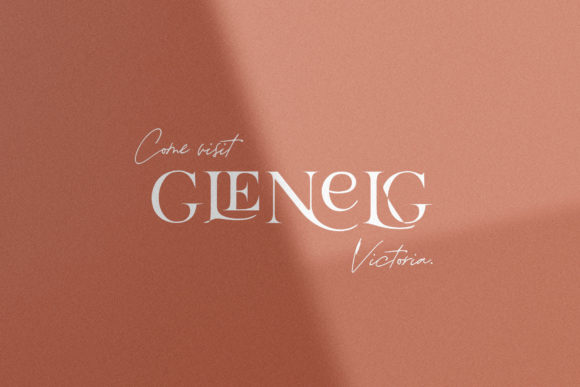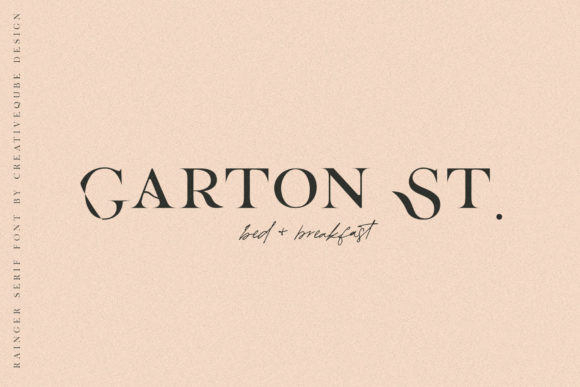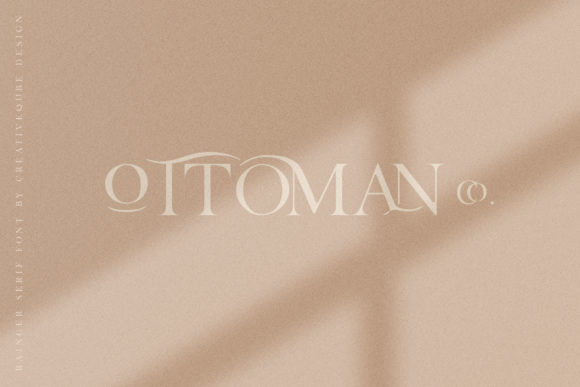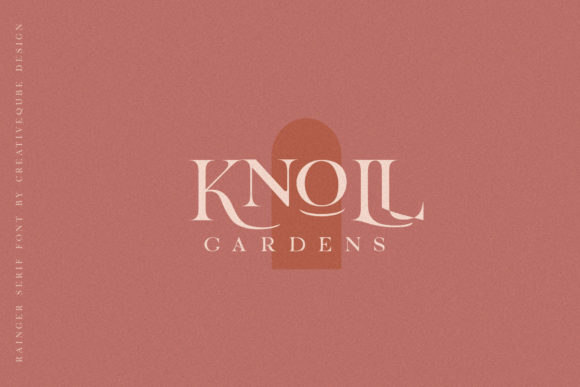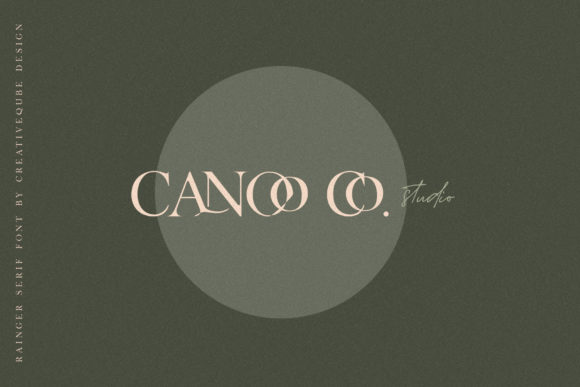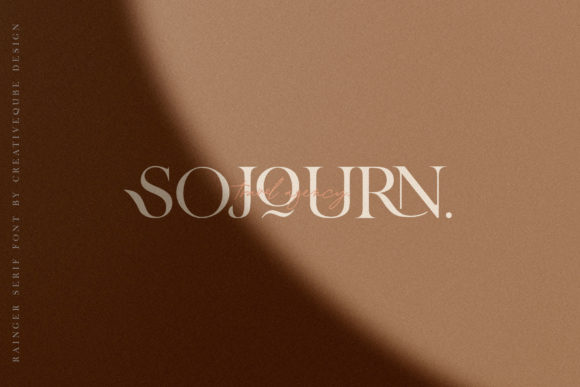
Introduction to Rainger Font
You’re in the zone, working on a creative project that requires a font that exudes confidence and style. The words start flowing, and your design begins to take shape. But something’s missing – a font that truly elevates your work and leaves a lasting impression. That’s where the Rainger Font comes in – a stylish and assertive serif font that’s sure to take your designs to the next level.
Key Features of Rainger Font
- High-quality, professional font ideal for creative projects, offering a unique and elegant touch.
- Designed to be highly legible and versatile, making it suitable for a variety of design applications, from branding to typography.
- Perfect for designers looking for a free, high-quality font that adds a touch of sophistication to their creative projects.
Honest Review: Rainger Font
I recently had the chance to work with the Rainger Font in a creative project and I must say, it was a great experience. The font is a versatile design resource that offers a lot of flexibility in terms of its usage.
What works well: ✨ The Rainger Font is a high-quality font that comes with a transparent background, making it easy to use in various design contexts. The font is also free to download, which is a major plus for designers who are on a budget. Additionally, the font’s sleek and modern design makes it perfect for a wide range of creative projects.
- Suitable for a wide range of creative projects
However, there are some limitations to the Rainger Font: ⚠️ It’s worth noting that the font may not be suitable for projects that require a lot of customization or advanced typography features. Additionally, the font’s style may not be to everyone’s taste.
Overall, I was impressed with the Rainger Font and would definitely recommend it to designers who are looking for a high-quality, free design resource. With its sleek design and transparent background, it’s a great addition to any design toolkit.
The Rainger Font is a versatile and high-quality design resource perfect for creative projects that require a unique touch. This font can be used in a variety of contexts, from branding and marketing materials to digital products and print designs.
The Rainger Font is perfect for creating branding materials, such as business cards and logos. It’s also great for designing digital products, like e-books and infographics. Additionally, this font can be used in print designs, such as posters and brochures.
Avenir Font is a high-quality sans-serif typeface ideal for creative projects requiring a clean and modern look. It’s available for free download and can be used on a transparent background, making it a great design resource. Avenir Font is suitable for headings, titles, and body text in various contexts, including digital and print media. Compared to Rainger Font, Avenir Font has a more geometric and structured design, which may appeal to designers seeking a more minimalist aesthetic.
Montserrat Font is a popular sans-serif typeface that’s perfect for design projects demanding a strong, urban feel. This free download is suitable for a wide range of applications, including logos, titles, and body text, and can be used on a transparent background. Montserrat Font is similar to Rainger Font in its geometric design, but has a more condensed and modern appearance, making it ideal for digital media and creative projects with a strong online presence.
Q: Is the Rainger Font suitable for use in high-resolution designs?
Yes, the Rainger Font is designed to be high-quality and scalable, making it suitable for use in high-resolution designs, such as those intended for print or display on high-resolution screens. The font’s crisp, clean lines and precise typography ensure that it will look great at any size or resolution.